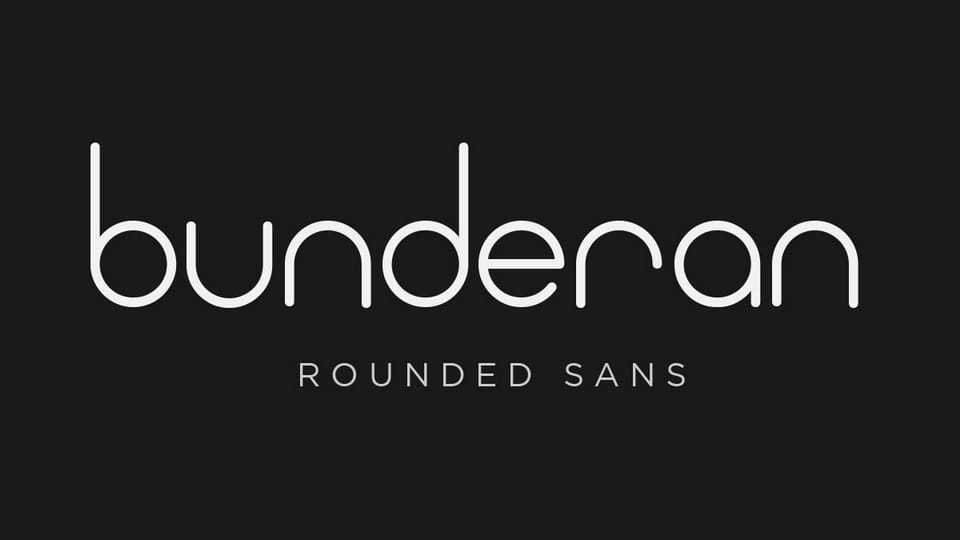
Download Bunderan font, a simple sans serif typeface, with rounded edges in favour of a smooth and clean look. It is perfect for logo designs, titles or subtitles, brand, and small amounts of text.
Designer: Saystudio